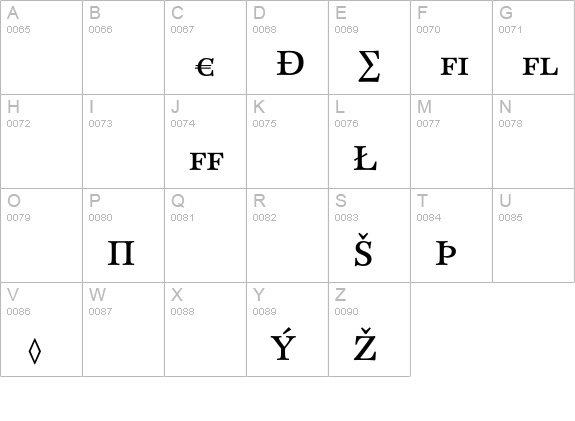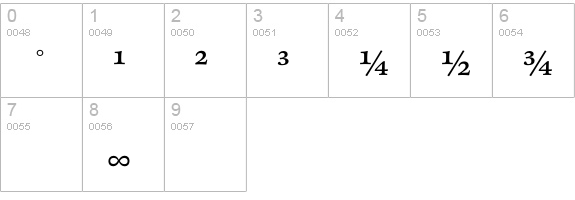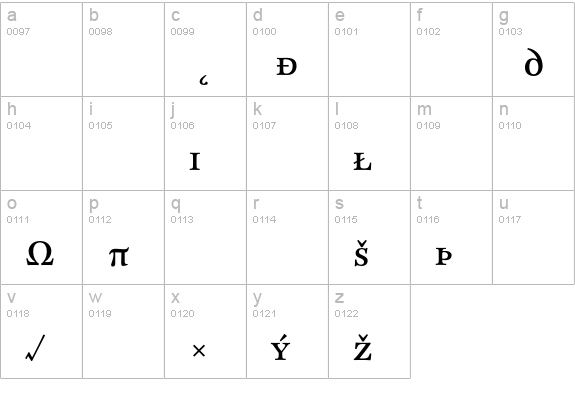
CliffordNine-CapsExpert Font Details
CliffordNine-CapsExpert font is a stylish and versatile typeface that exudes sophistication and elegance. With its unique blend of sharp angles and smooth curves, this font is perfect for adding a touch of class to any design project. The uppercase characters feature a distinctive caps style that commands attention and makes a bold statement. What sets CliffordNine-CapsExpert font apart is its versatility - it can be used for a variety of design purposes, from logos and branding to headlines and titles. Whether you're creating a sleek modern website or designing a high-end print publication, this font is sure to elevate your project to the next level. Best of all, CliffordNine-CapsExpert font is available for free download at FontsMarket.com. So go ahead and add this stunning font to your collection today and take your designs to new heights.